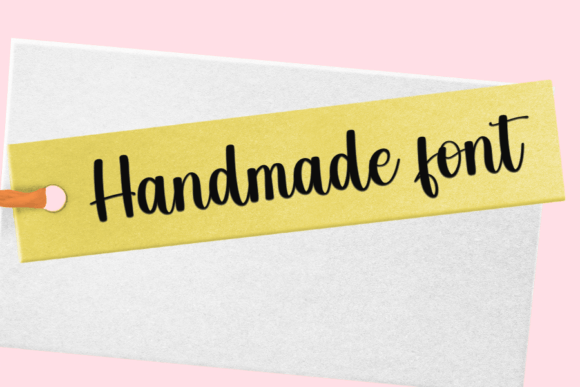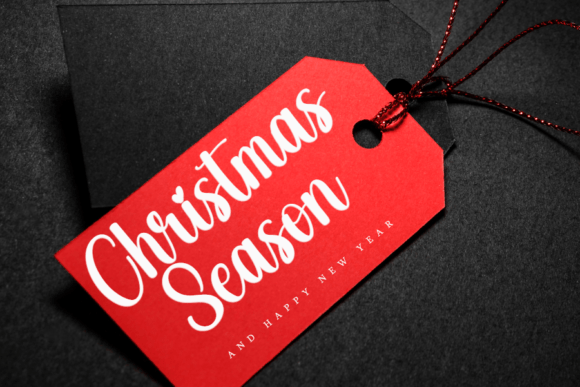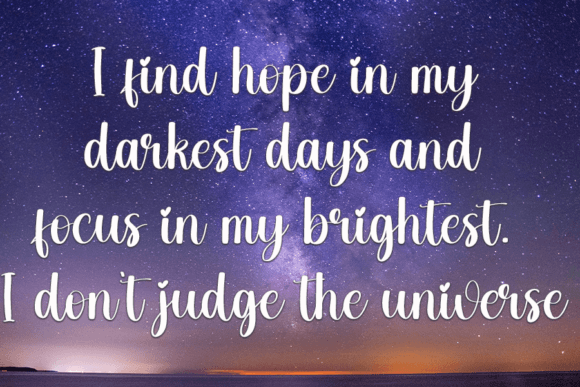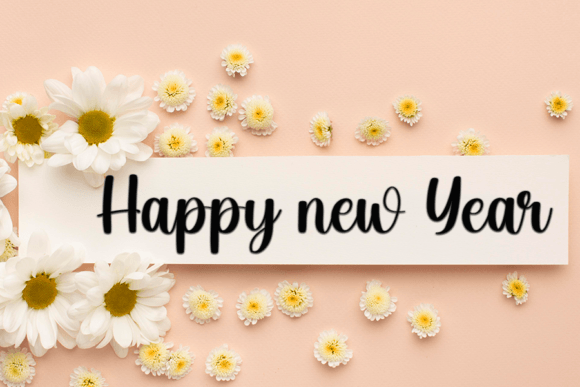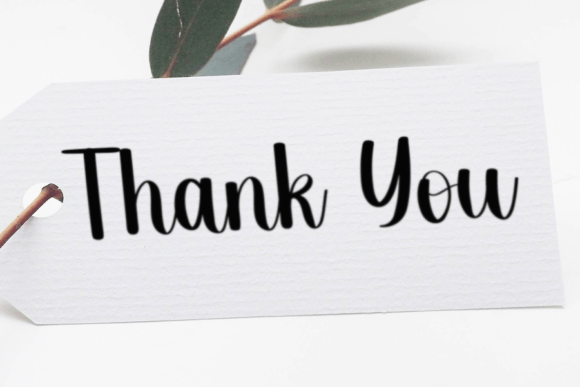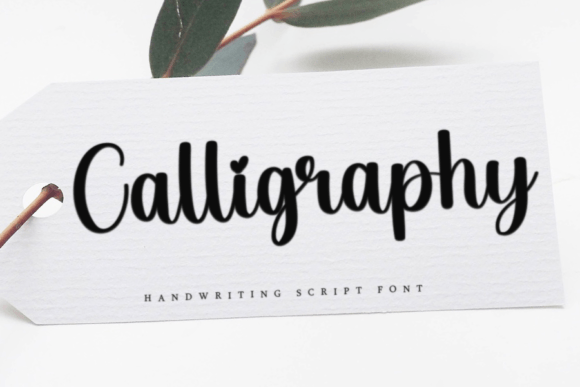
Elevate Your Designs with the Timeless Elegance of Calligraphy Fonts
In the realm of typography, few styles evoke the same level of sophistication and refinement as calligraphy. This ancient art form, which involves creating decorative letters and symbols with a brush or pen, has been a cornerstone of elegant design for centuries. With the resurgence of interest in classic calligraphy, modern designers are now spoiled for choice with a vast array of calligraphy fonts that bring a touch of timeless elegance to any project. Among these, the Calligraphy Font stands out as a trendy, handwritten font that embodies both a contemporary atmosphere and impeccable form.
The Essence of Calligraphy Fonts
Calligraphy fonts are more than just a means of creating aesthetically pleasing text; they are a bridge between tradition and modernity. These fonts capture the fluidity, grace, and expressiveness of handwriting, while also offering the precision and consistency that digital design demands. Whether you’re working on a wedding invitation, a logo, a packaging design, or a digital advertisement, incorporating a calligraphy font can instantly elevate your project, imbuing it with a sense of luxury and personal touch.
Introducing the Calligraphy Font
The Calligraphy Font is a stunning example of modern calligraphy, drawing inspiration from timeless classics while presenting a fresh, contemporary look. This font is characterized by its elegant strokes, impeccable form, and a seamless blend of traditional and modern elements. Its versatility makes it suitable for a wide range of design applications, from stationery and editorial design to web graphics and advertising.
Key Features of the Calligraphy Font
- Elegant and Sophisticated: The Calligraphy Font exudes elegance and sophistication, making it perfect for designs that require a high level of refinement.
- Contemporary Twist: While rooted in traditional calligraphy, this font offers a modern take that will appeal to designers looking for something fresh and unique.
- Versatile: From wedding and event designs to branding and advertising, this font’s versatility shines through in various applications.
- Readable and Detailed: Despite its ornate nature, the Calligraphy Font maintains a high level of readability, ensuring that your message is conveyed clearly and effectively.
The Calligraphy Font offers designers and crafters a beautiful tool to add elegance, class, and a touch of timeless sophistication to their projects. With its contemporary atmosphere and impeccable form, inspired by classic calligraphy, this font is poised to make a statement in the world of design. Whether you’re a seasoned professional or a DIY enthusiast, embracing the beauty of calligraphy fonts can elevate your designs, making them more engaging, memorable, and impactful.